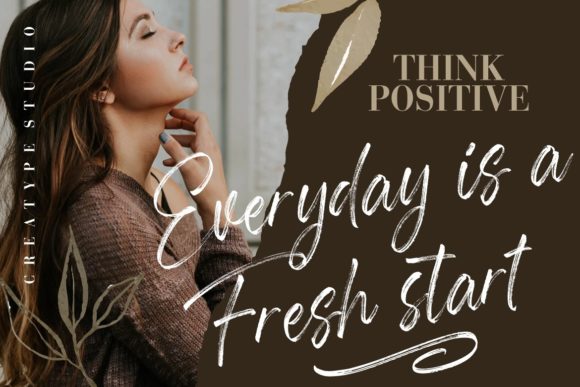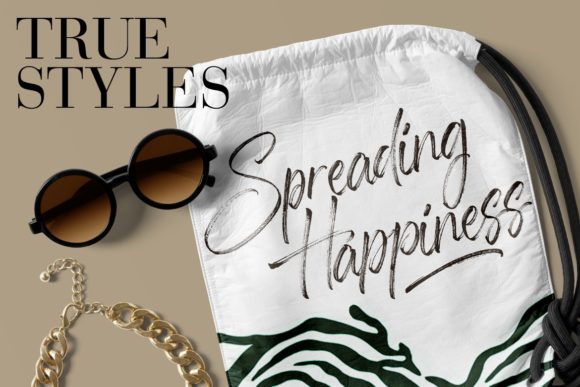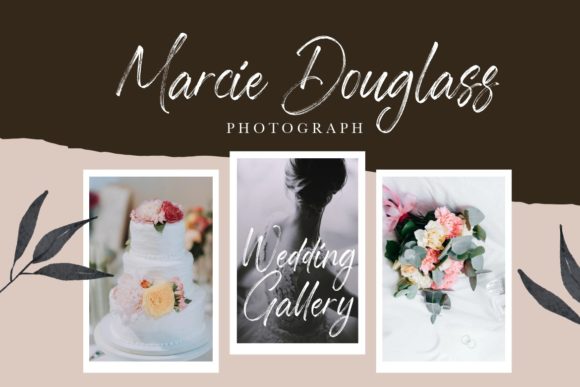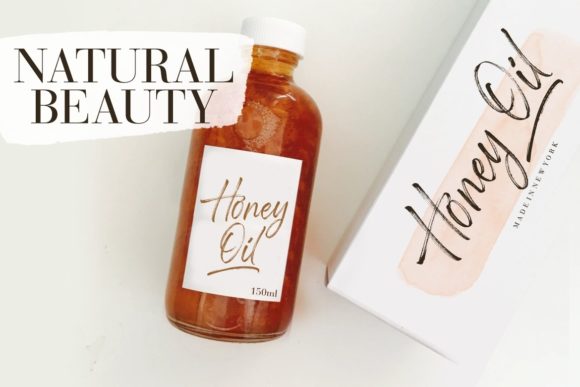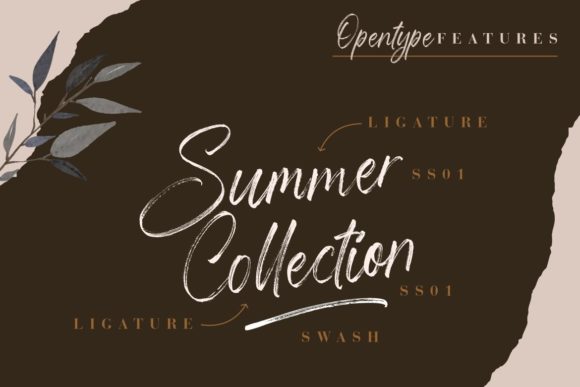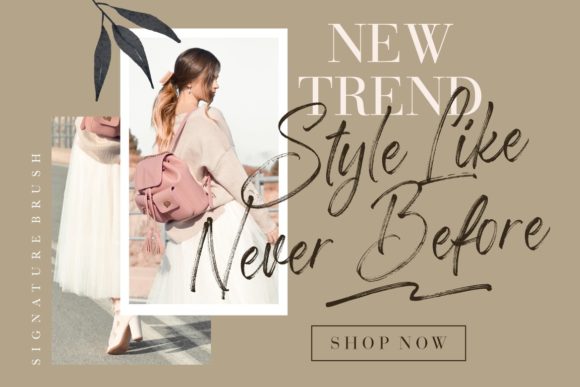
Introduction to Sabertooth Font
As you sit in front of your computer, staring at a blank canvas, waiting for inspiration to strike, you suddenly feel a rush of creativity. You envision a design that’s both elegant and bold, with a touch of whimsy that sets it apart from the ordinary. This is the moment when the right font can make all the difference.
This is where the Sabertooth Font comes in – a masterfully designed handwritten font that’s about to become your new favorite design resource. With its classy calligraphic influences and contemporary feel, it’s the perfect addition to any high-quality creative project. And the best part? It’s PUA encoded, making it incredibly easy to access all of its beautiful glyphs and swashes, even with a transparent background.
Key Features of Sabertooth Font
- High-quality design resource ideal for creative projects, offering a unique and modern aesthetic.
- Features a transparent background, allowing for seamless integration with any design element.
- Designed with a high-resolution display in mind, with a resolution of 300 DPI for crisp and clear rendering.
- Suitable for a wide range of creative projects, from logos and branding to digital art and typography.
- Includes a comprehensive character set, covering a wide range of languages and characters.
Honest Review: Sabertooth Font
I recently stumbled upon the Sabertooth Font, and I must say, it’s an impressive design resource. The font is a great addition to any creative project that needs a bold and edgy touch.
- ✨ High-quality font with crisp lines and a transparent background, making it perfect for design work.
- ⚠️ Limited character set, which might be a concern for designers who need to use the font for complex text-based projects.
- ⚠️ Not ideal for projects that require a large amount of text, as it may become difficult to read.
Overall, I’m impressed with the Sabertooth Font. While it may have some limitations, its high-quality design and free download make it a valuable resource for designers. I’d definitely recommend it for projects that require a bold, edgy look.
The Sabertooth Font is perfect for:
- Designing logos and branding materials.
- Creating social media graphics and posters.
- Designing digital products and websites.